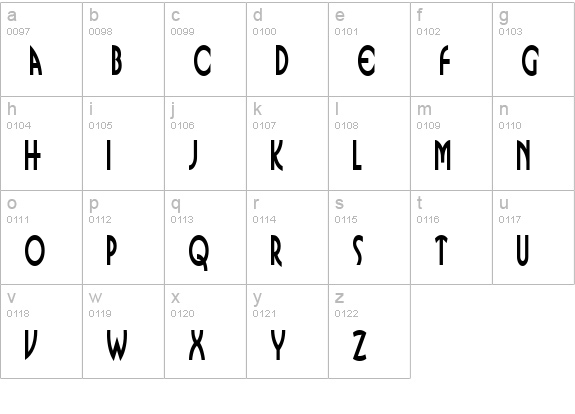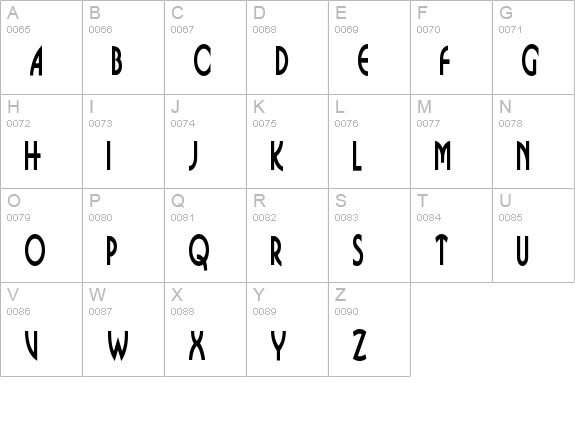
Bosnia D Bold is a strong, high-contrast variant in the Bosnia typeface family \xE2\x80\x94 well suited to headlines, attention-grabbing titles, and strong calls-to-action.
Bosnia D Bold font is a versatile and modern typeface that exudes elegance and sophistication. Its bold design makes it perfect for creating impactful headlines, titles, and branding materials. The clean lines and sharp edges of Bosnia D Bold make it a standout choice for any design project that requires a touch of boldness and style. The best part? Bosnia D Bold font is available for free download at FontsMarket.com. This means you can easily access this stunning font and use it in your projects without any cost. Whether you're working on a website, poster, logo, or any other design, Bosnia D Bold font will elevate your work and make a lasting impression. With its sleek and contemporary look, Bosnia D Bold font is sure to add a touch of sophistication to any design. Download it for free today and take your projects to the next level with this eye-catching typeface.